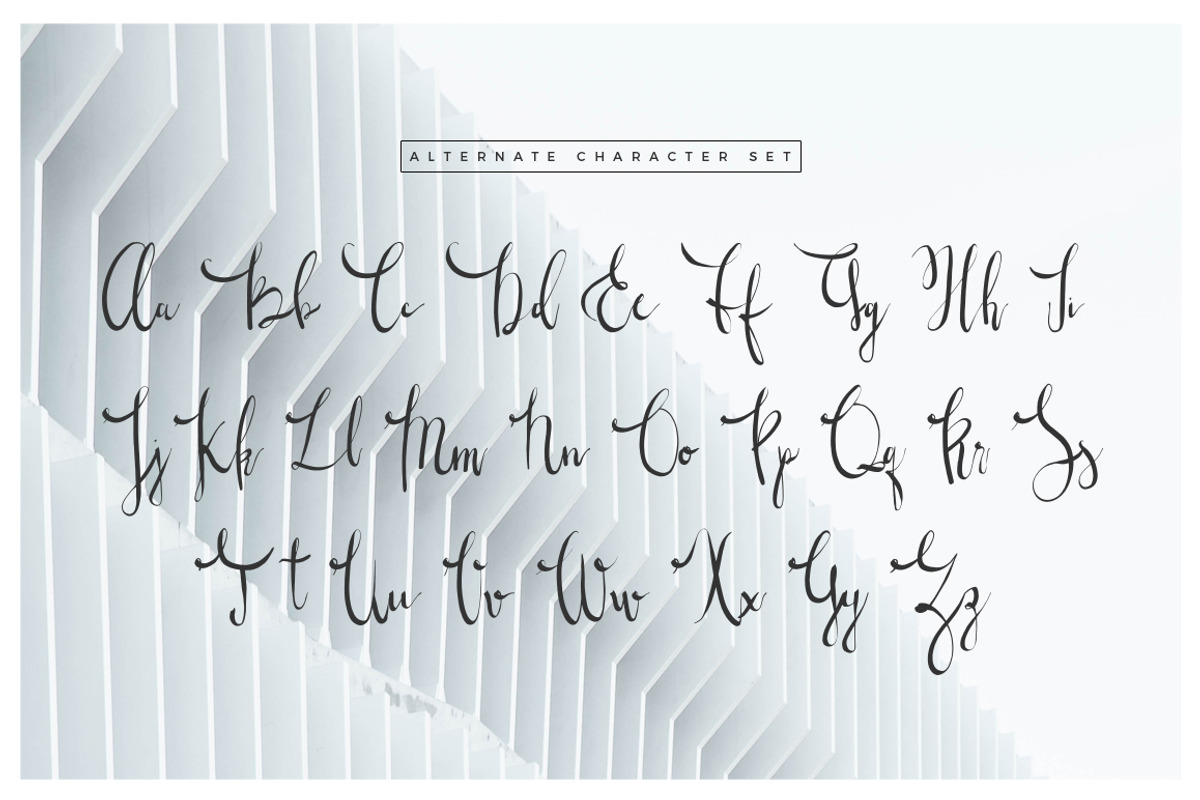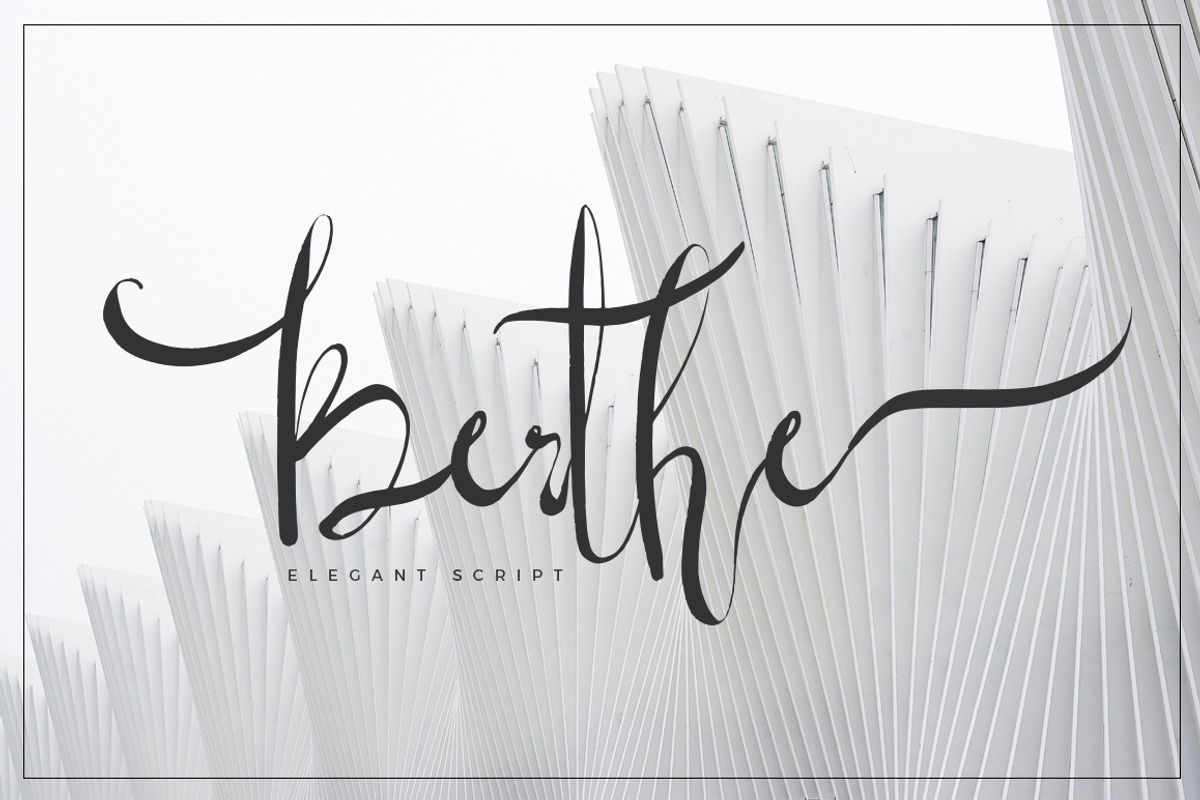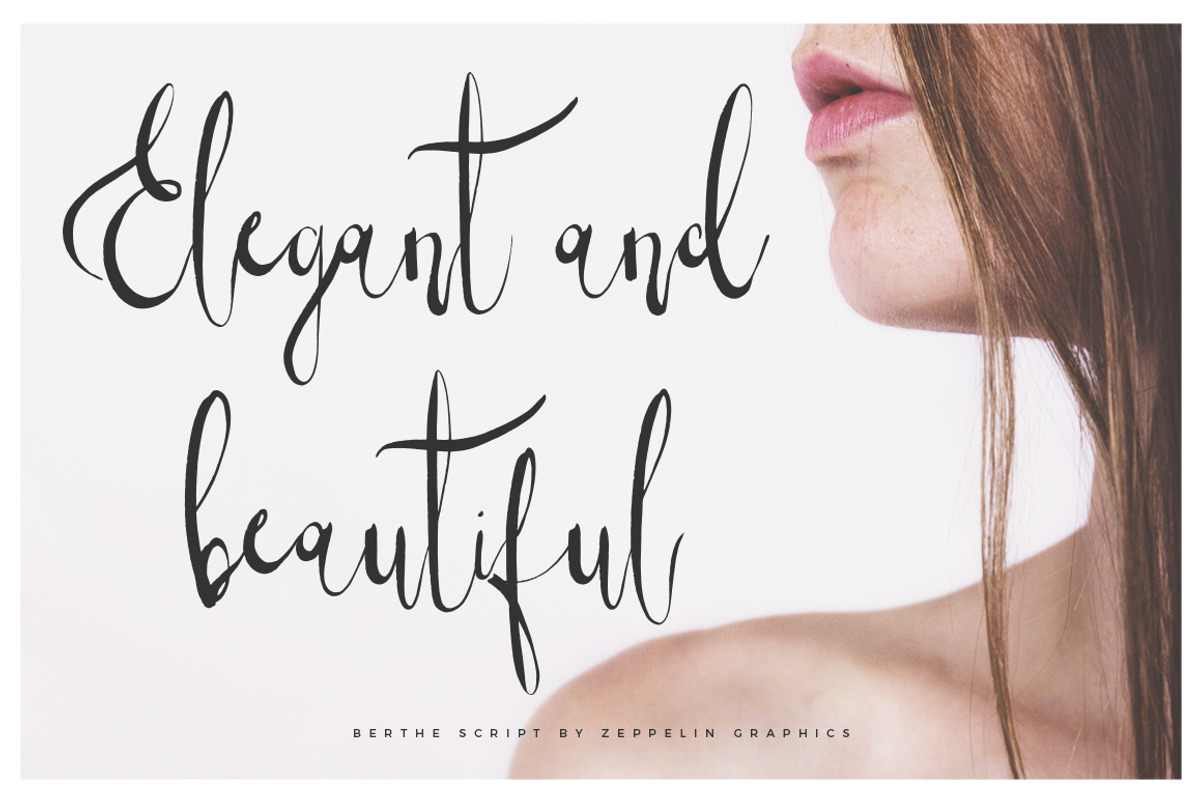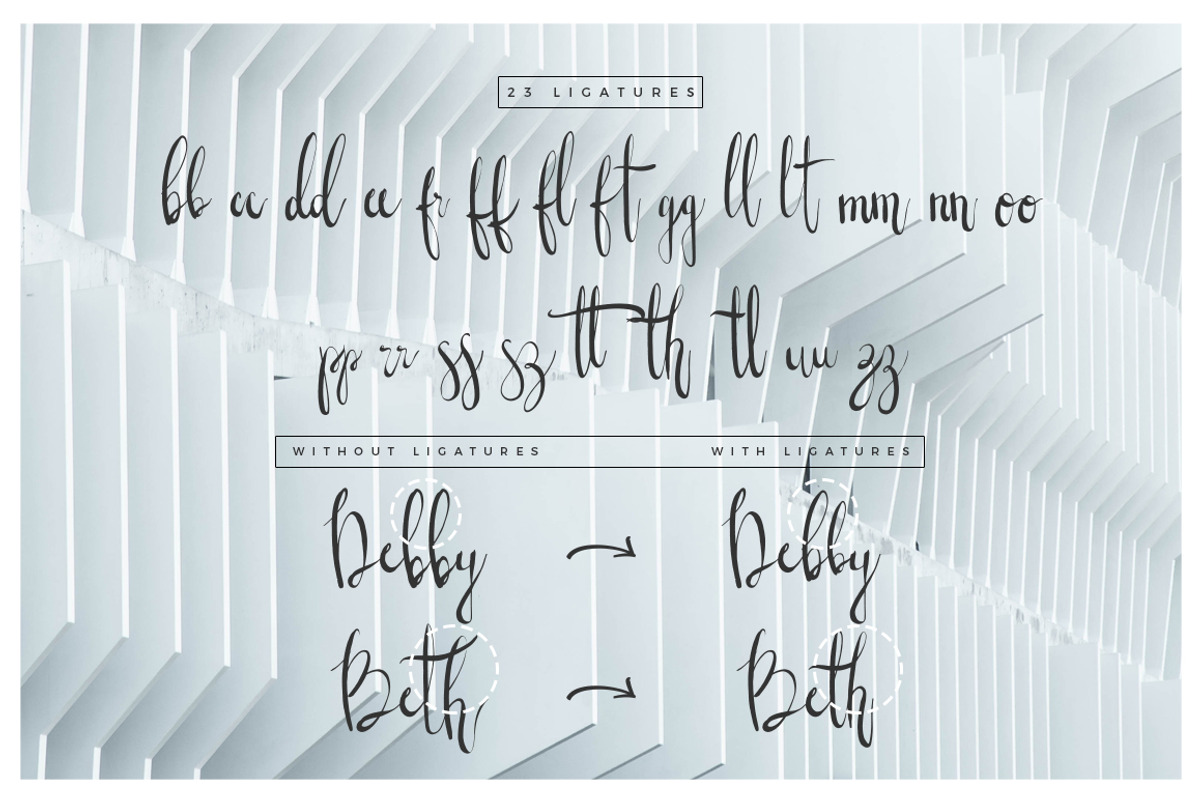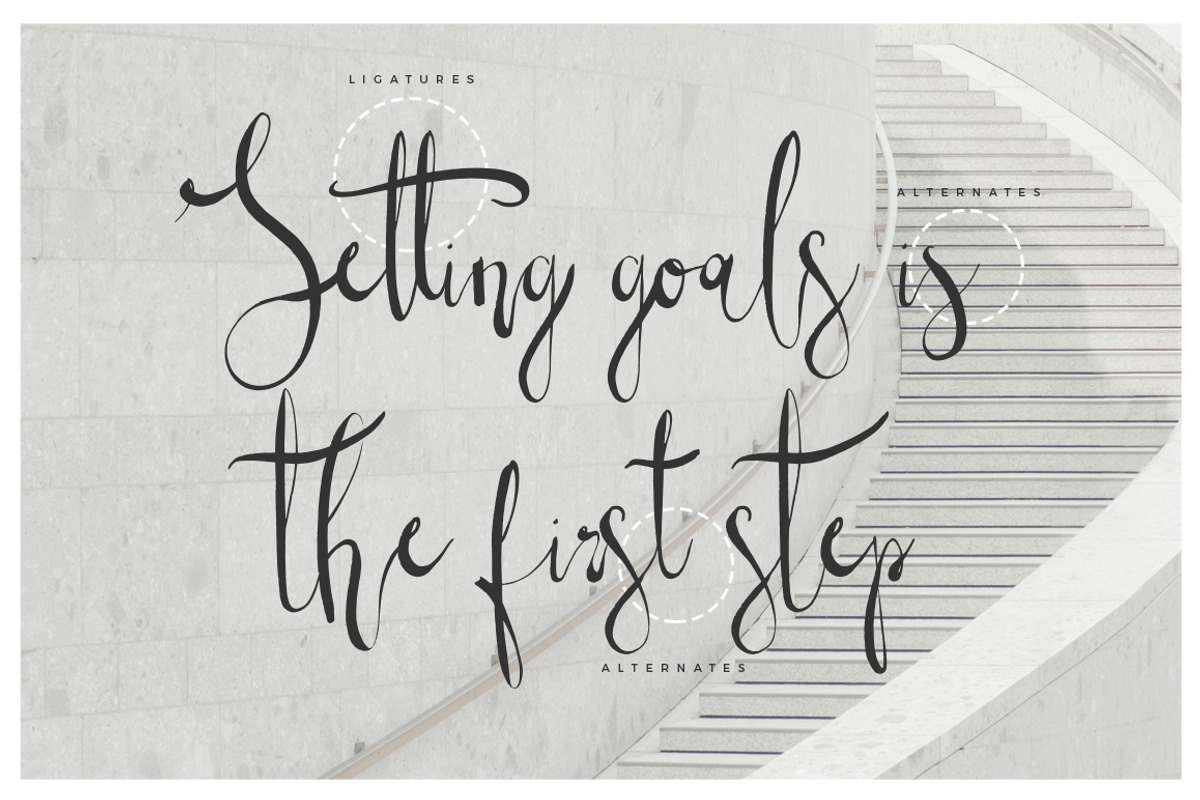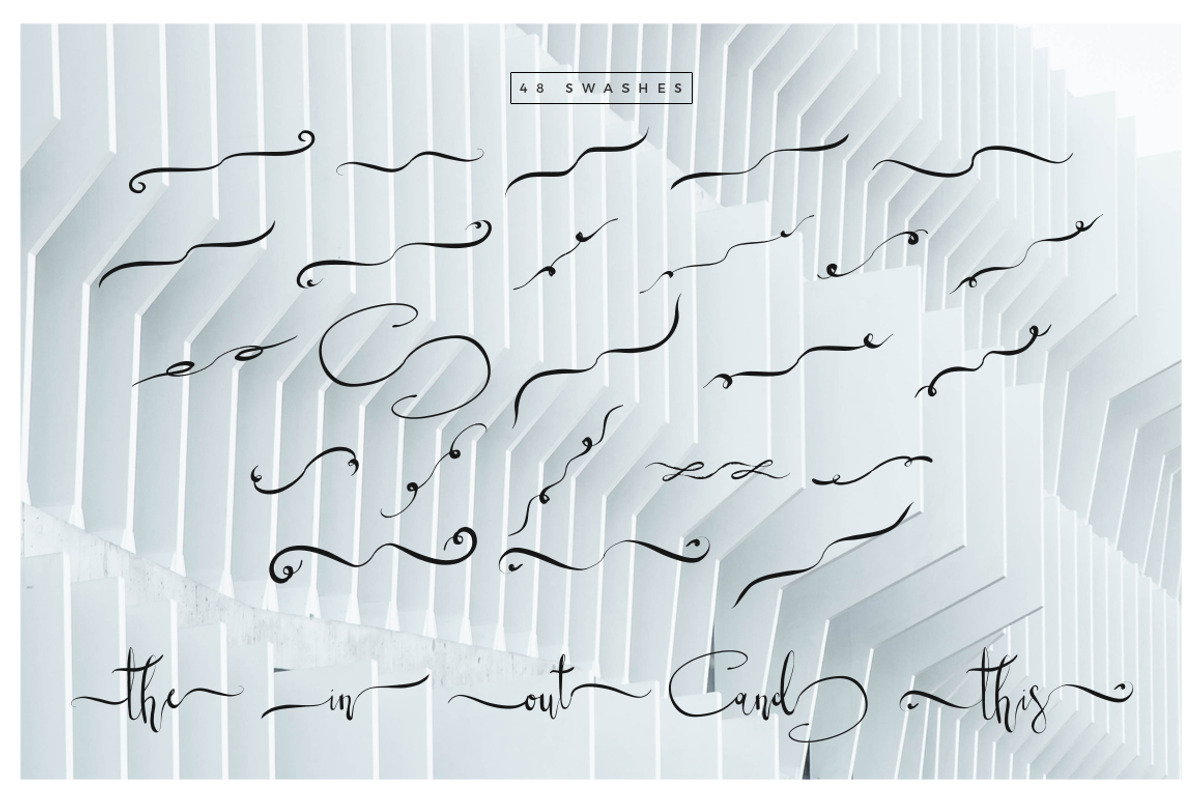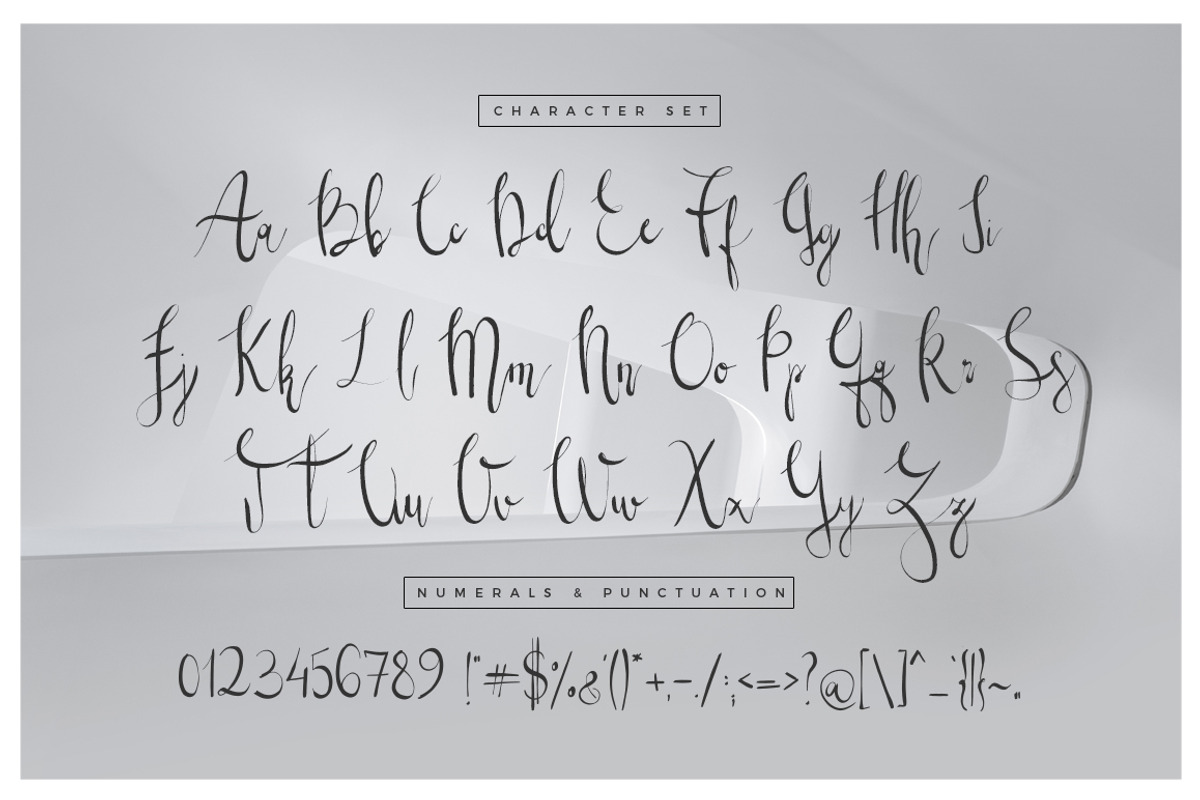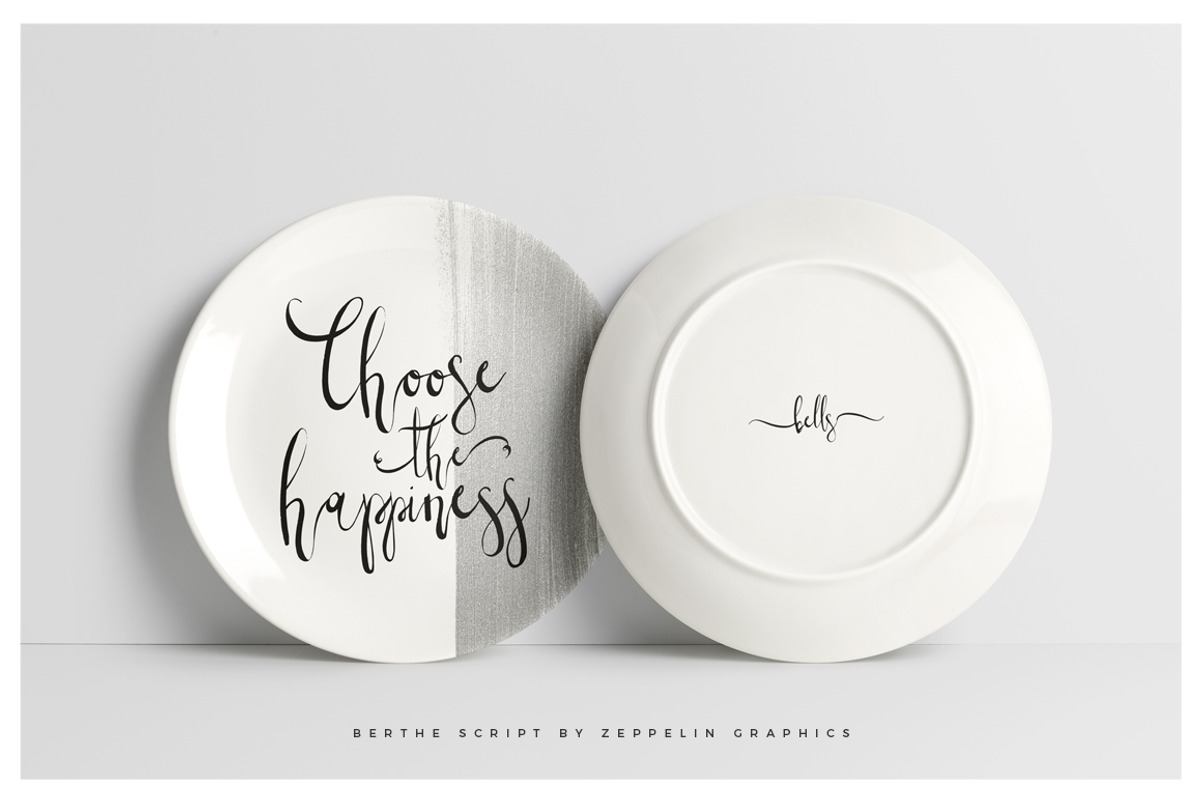
Berthe Script Font
We are happy to introduce Bella Script, a script signature font that includes 2 versions, one with ligatures and a slightly different altvernative that includes swashes!
Bella script includes uppercase and lowercase letters, numerals and punctuation and it's a perfect choice for signature type texts, titles, invitations or very stylish logos as seen in the presentation images.
Berthe Script features:
Ligatures and swashes